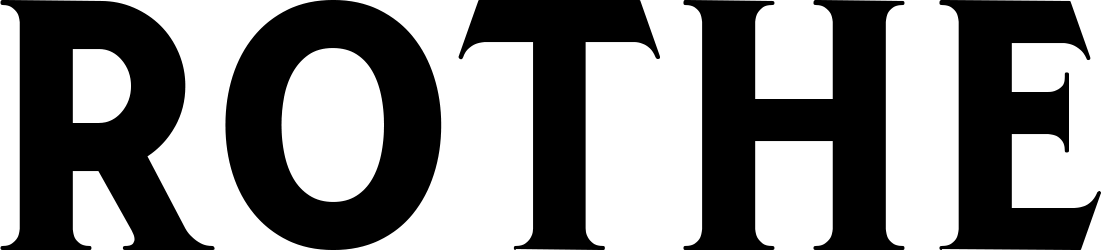
Rothe Font
Try something special and inspire anyone with the result. Rothe is one of those serif fonts that you can’t see everywhere. It shares a vibe of classic and magical.
ROTHE, A luxury vintage lettering style fonts. Inspired by the branding from the vintage classic era with the full decorative feels and complex design but still get the luxury feels right away.